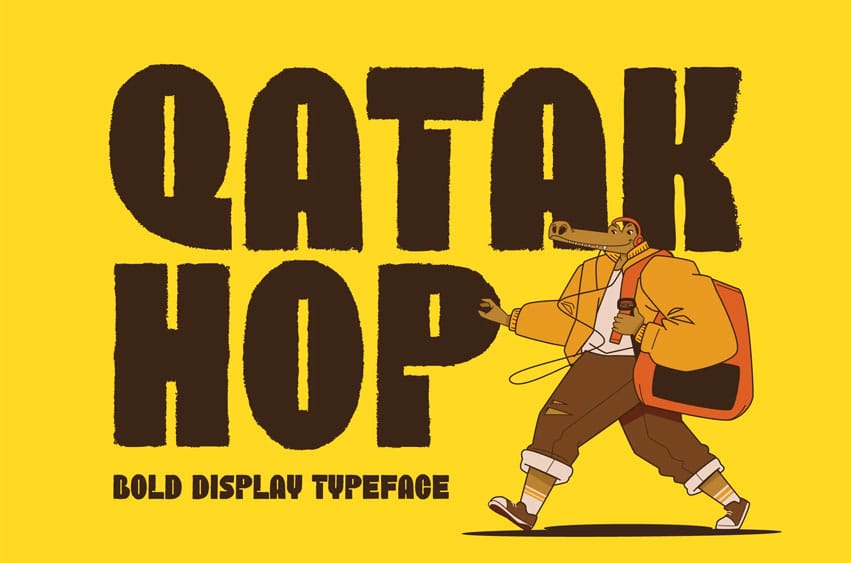
Qatak Hop Font Make a massive visual impact with QATAK HOP, an assertively bold and distinctive display typeface. This unique font is meticulously designed with a heavy, solid structure and a subtle rough/distressed texture, making it perfect for projects that demand a powerful, commanding, and energetic presence. Inspired by vintage signage and strong graphic messaging, QATAK HOP ensures your headlines are unforgettable.
QATAK HOP’s signature bold structure and slightly irregular forms command immediate attention. It is incredibly effective for a wide array of high-impact applications: think energetic event posters, compelling advertising campaigns, distinctive product packaging, retro branding projects, striking gaming titles, and any graphic design that aims for maximum visibility and vintage charm. Its dominant presence and unique texture make it an instant standout.
This font comes equipped with a comprehensive character set, including uppercase and lowercase letters, numbers (0-9), and essential punctuation and symbols. Designed for optimal clarity and power, QATAK HOP is ready to infuse your designs with an unparalleled sense of confidence and artistic flair.
- Bold Display Typeface: Designed for high-impact headlines and prominent text.
- Distressed/Rough Texture: Subtle grunge effect for an authentic, vintage feel.
- Complete Character Set: Includes uppercase, lowercase, numbers (0-9), and essential punctuation/symbols.
- Versatile Usage: Perfect for advertising, posters, branding, packaging, games, and large-scale graphic projects.
- Retro & Signage Influence: Evokes a nostalgic and strong graphic aesthetic.
- Unconventional Structure: Adds unique character and visual interest.